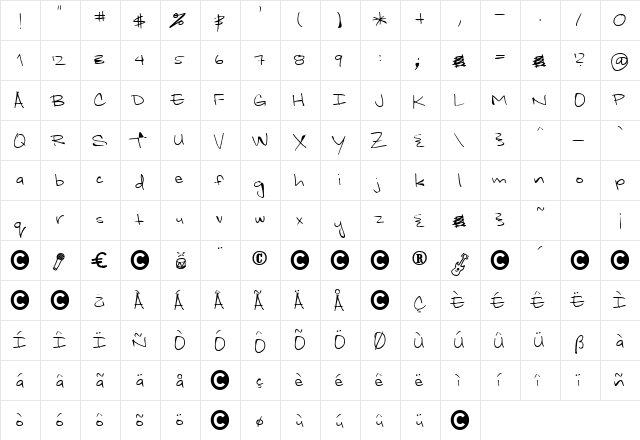
WhiteyFord Regular
Design Context for WhiteyFord Typeface
WhiteyFord is a composed and adaptable typeface that performs quietly and consistently across a wide range of design contexts.